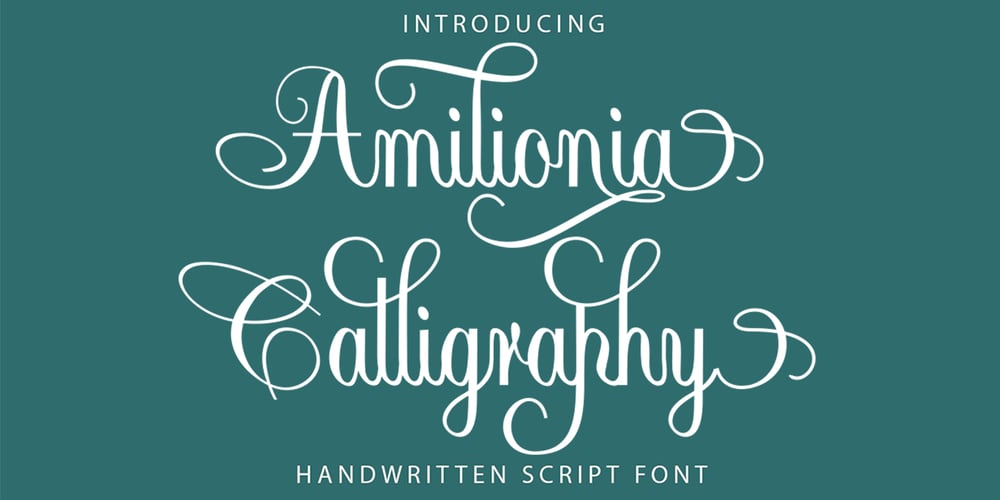
Amilionia Calligraphy Font Family was designed by Teuku Saifullah and published by Shape Studio. Amilionia Calligraphy contains 1 styles and family package options. Amilionia is a new modern script calligraphy font with an irregular baseline. Trendy and feminine style.Amilionia Script looks lovely on wedding invitations, thank you cards, quotes, greeting cards, logos, business cards and more. Perfect for using in ink or watercolour. Including initial and terminal letters, alternates, ligatures and multiple language support